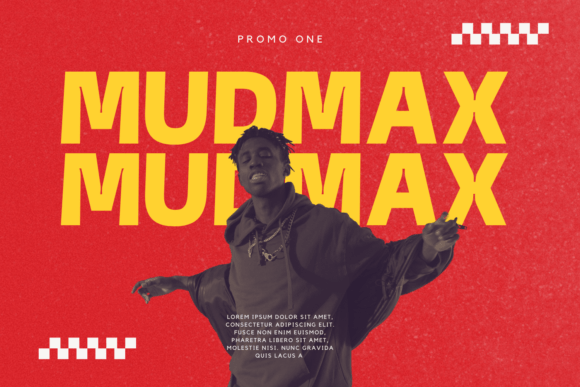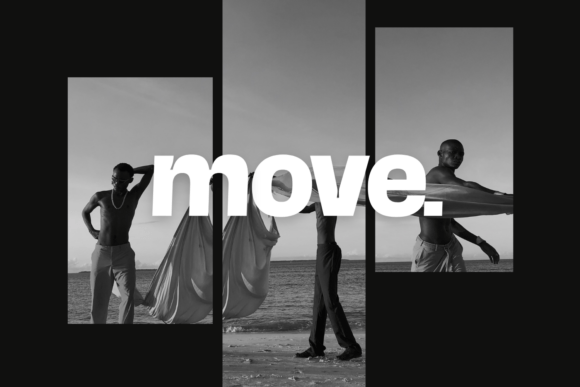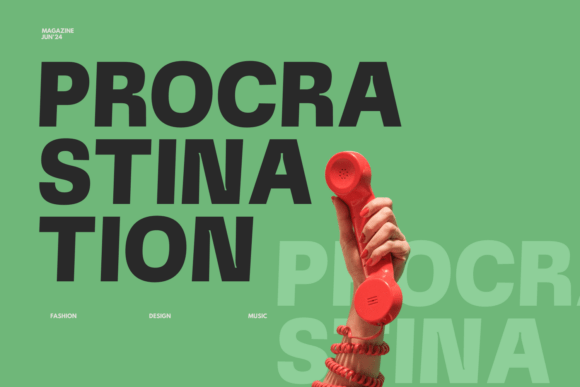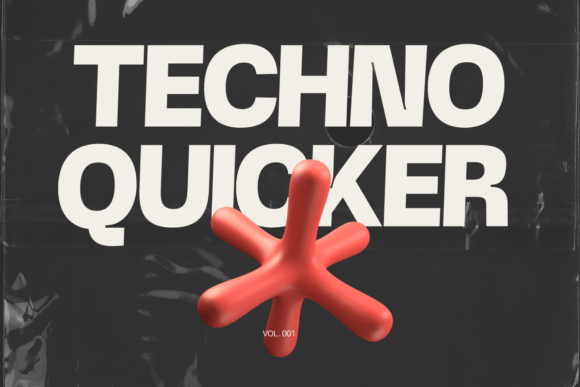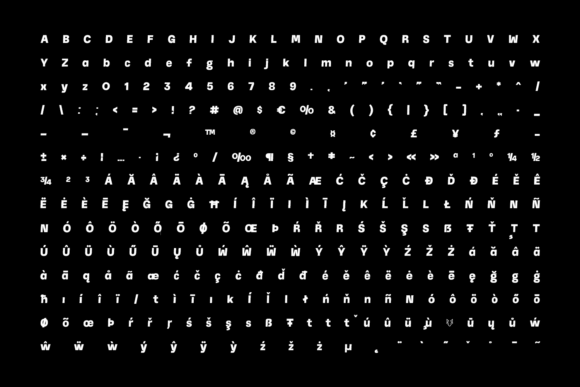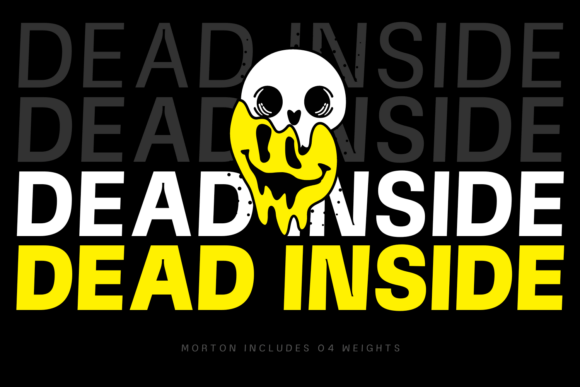
Introduction to Morton Font
Have you ever stared at a blank canvas, feeling the pressure to create something truly remarkable? The blank page can be intimidating, but with the right tools, it can also be a thrilling challenge. As a designer, you know that the perfect font can make all the difference between a good design and a great one. This is where Morton Font comes in – a game-changing typography that’s about to revolutionize your creative projects.
Imagine being able to elevate your designs with a font that’s not only stylish but also highly versatile. With Morton Font, you can achieve just that. Whether you’re working on a poster, a magazine cover, or a banner, this font is sure to make your design stand out. And with its sleek and contemporary style, you can be sure that your creative project will be a hit with your audience.
As a valuable design resource, Morton Font offers a high-quality experience that’s hard to find elsewhere. With its transparent background and elegant curves, this font is perfect for designers who want to make a bold statement in the marketplace. And the best part? It’s available for free download, making it an accessible choice for designers of all levels.
Key Features of Morton Font
- High-quality, professional font design perfect for creative projects
- Available in a transparent background, ideal for overlaying on images or videos
- Unique, modern design that adds a touch of sophistication to any project
- Perfect for designers, artists, and creatives looking for a high-quality, free font
Honest Review: Morton Font
Morton Font is a design resource that caught my attention with its clean and modern aesthetic. As a designer, I appreciate fonts that are both versatile and easy to use. In this review, I’ll share my honest thoughts on this font.
- ✨ High quality design: Morton Font has a professional look and feel that’s perfect for creative projects.
- ✨ Transparent background: This feature makes it easy to work with the font, especially when designing for digital platforms.
- ⚠️ Limited font styles: Morton Font currently only offers a few font styles, which might limit its use in more complex designs.
- ⚠️ Not ideal for print projects: The font’s design might not be suitable for print projects that require a more traditional look.
Overall, Morton Font is a solid design resource that can be a great addition to any designer’s toolkit. While it has some limitations, its high quality design and transparent background make it a great choice for creative projects. I’d recommend giving it a try to see if it fits your design needs.
Morton Font
Common Use Cases for Morton Font
The Morton Font is a versatile design resource that can be used for a variety of creative projects, including business cards, brochures, and social media graphics. It is also suitable for use in presentations, reports, and other documents that require a professional-looking design.